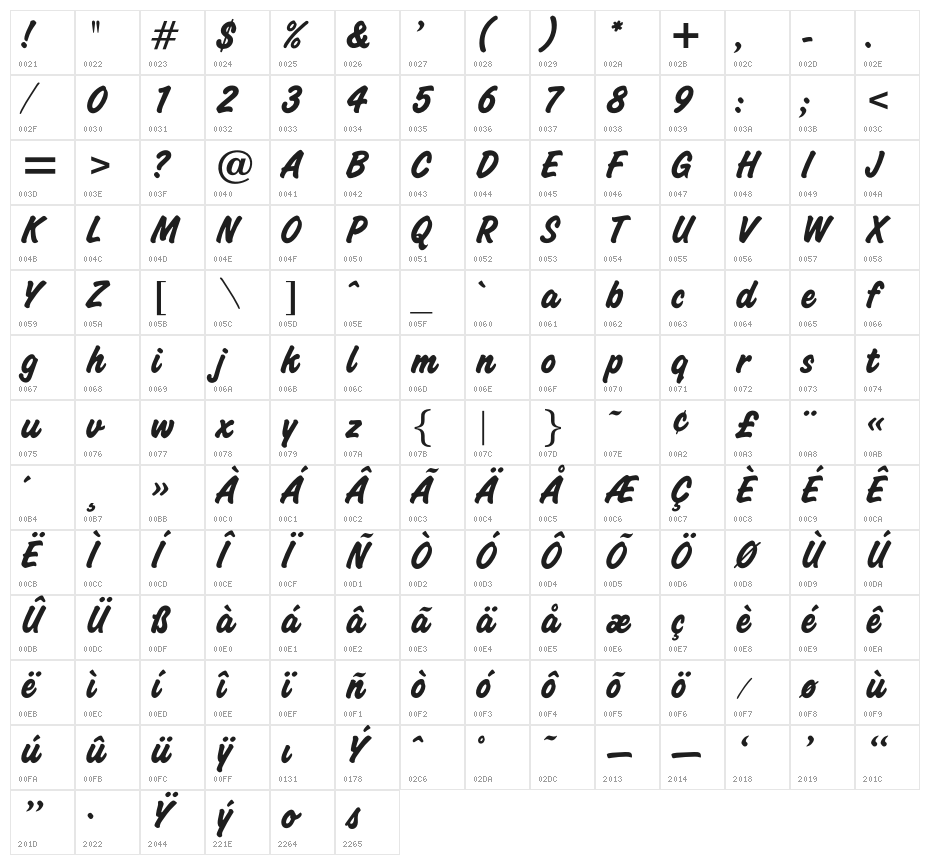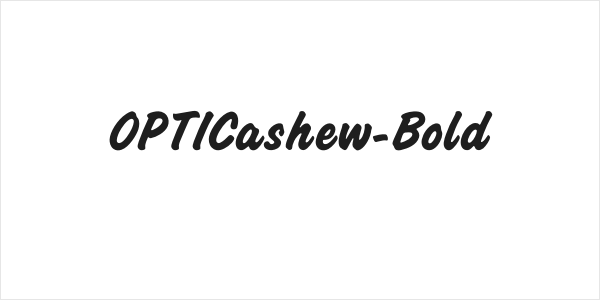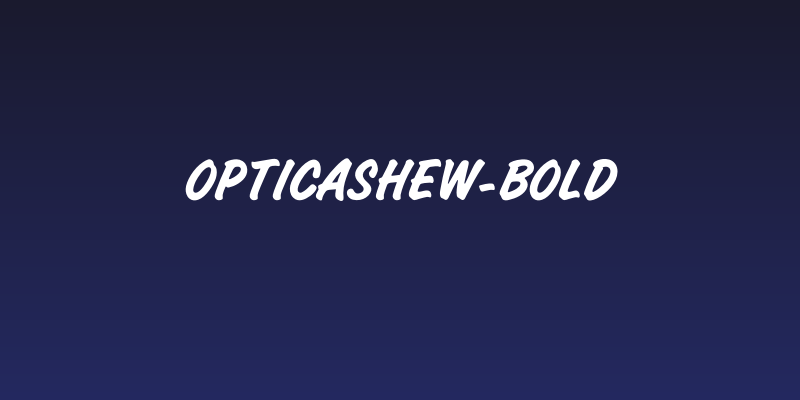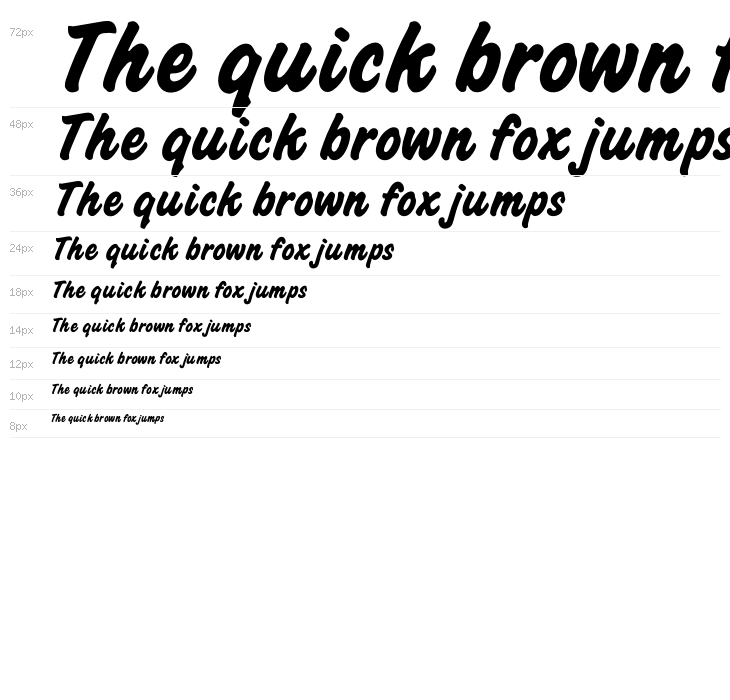
OPTICashew-Bold Font
OPTICashew-Bold Description
This font features a bold, cursive style with smooth, flowing lines that convey a sense of elegance and dynamism. The characters are well-rounded and slightly slanted, giving them a handwritten appearance. The uppercase letters are prominent and assertive, while the lowercase letters maintain a consistent flow, enhancing readability. The numerals are distinct and clear, matching the overall style of the alphabet. Special characters are designed with the same attention to detail, ensuring they integrate seamlessly with the rest of the font. This font is ideal for projects that require a personal touch, such as invitations, greeting cards, or branding materials.
Use CaseLogos, Headlines, Invitations
Proposed ProjectsIdeal for invitations, greeting cards, branding, and personal projects requiring a touch of elegance.